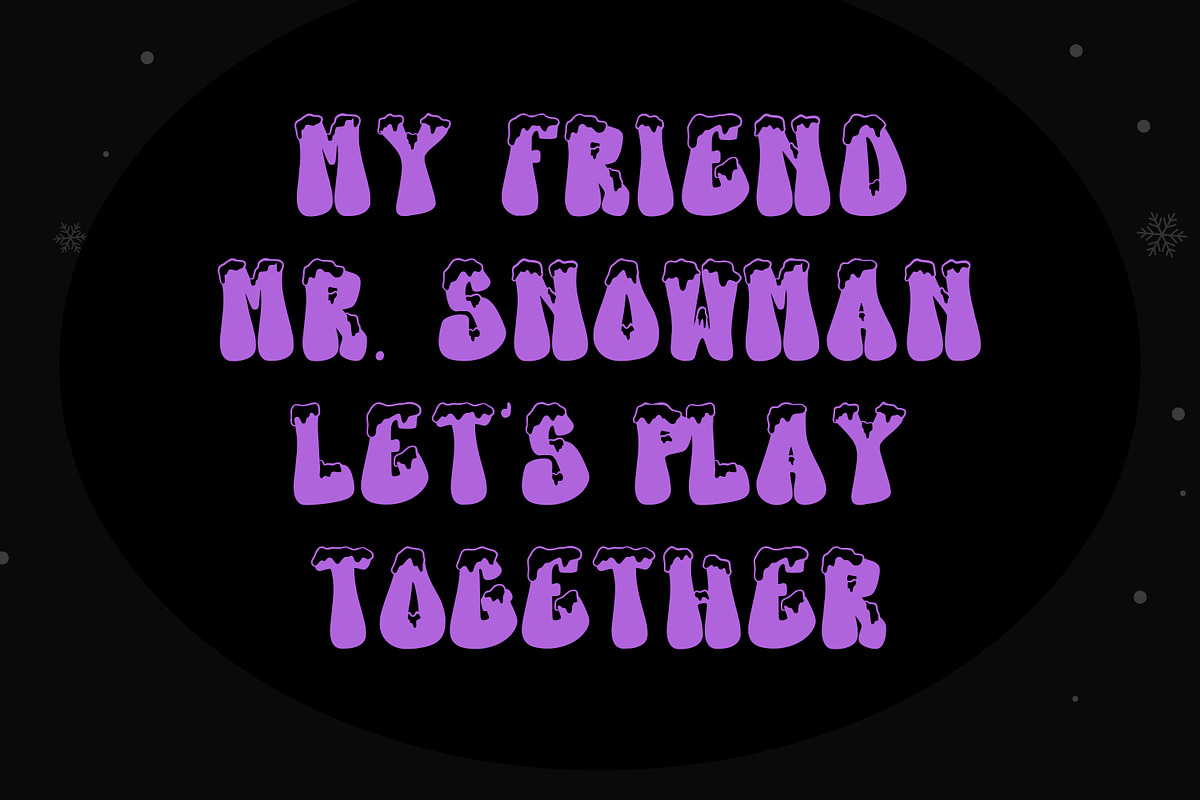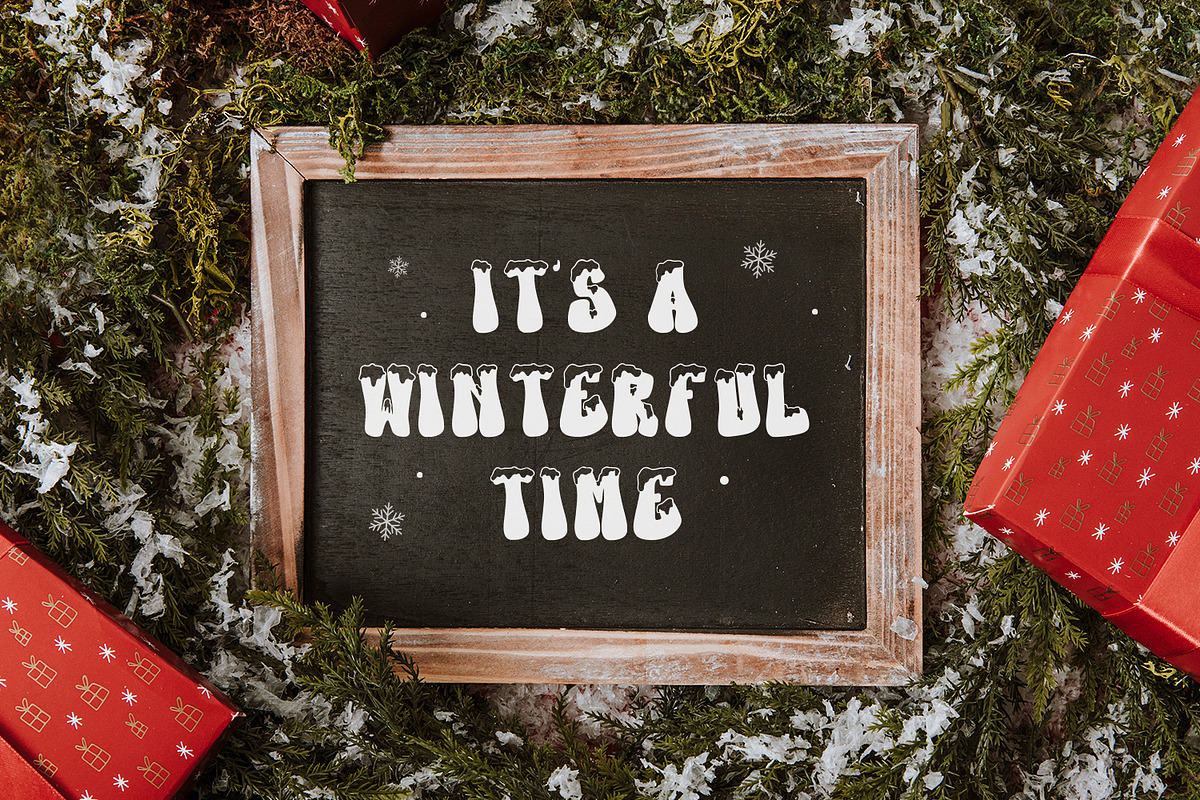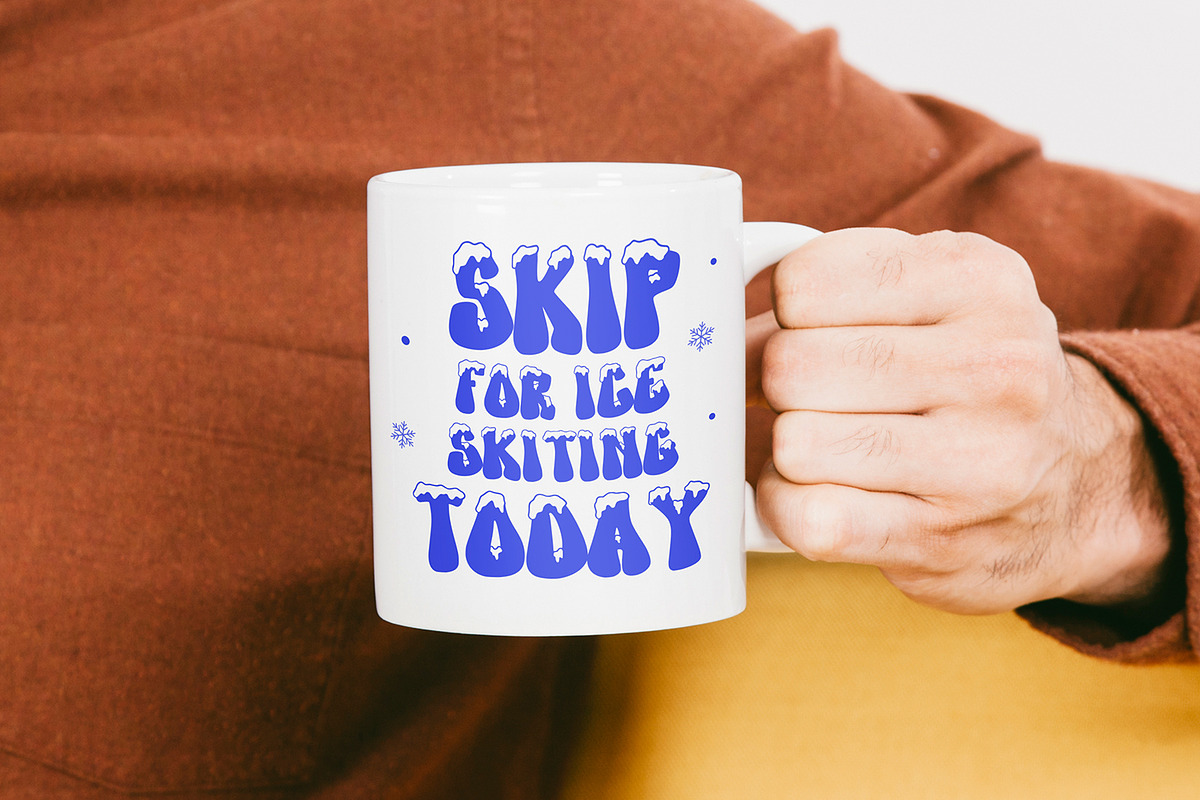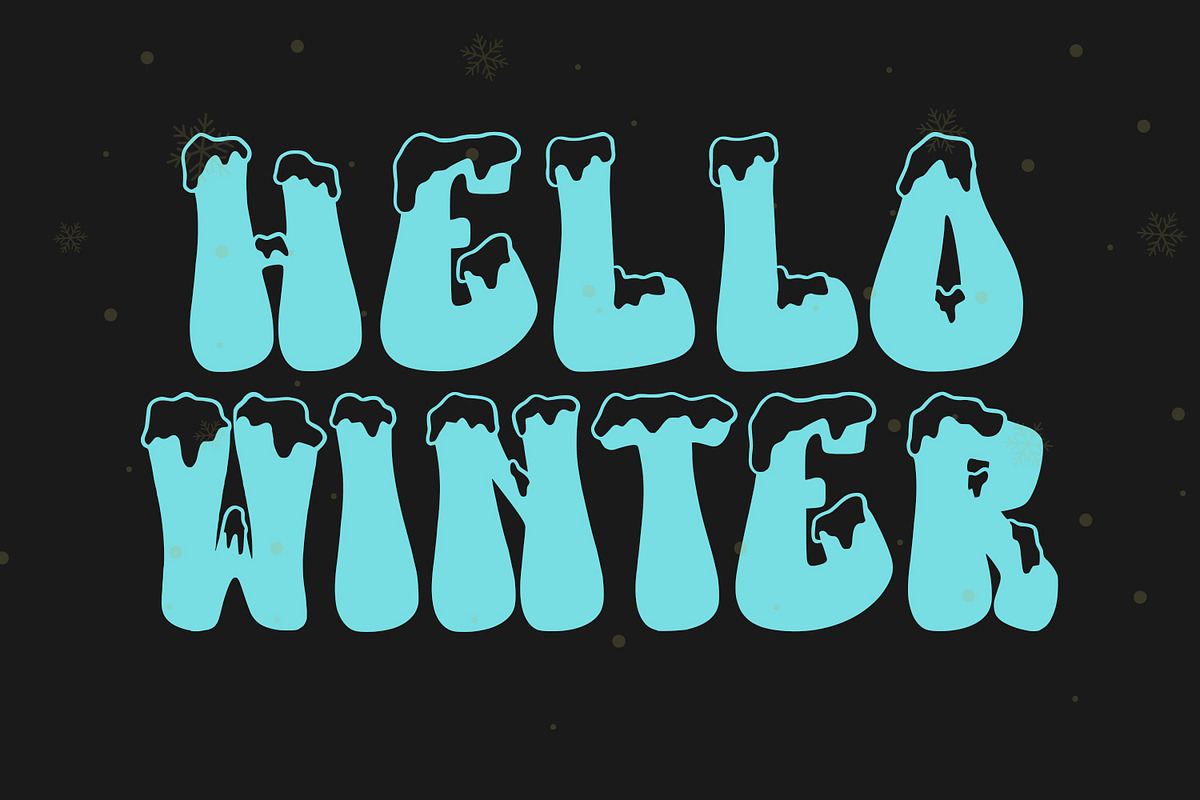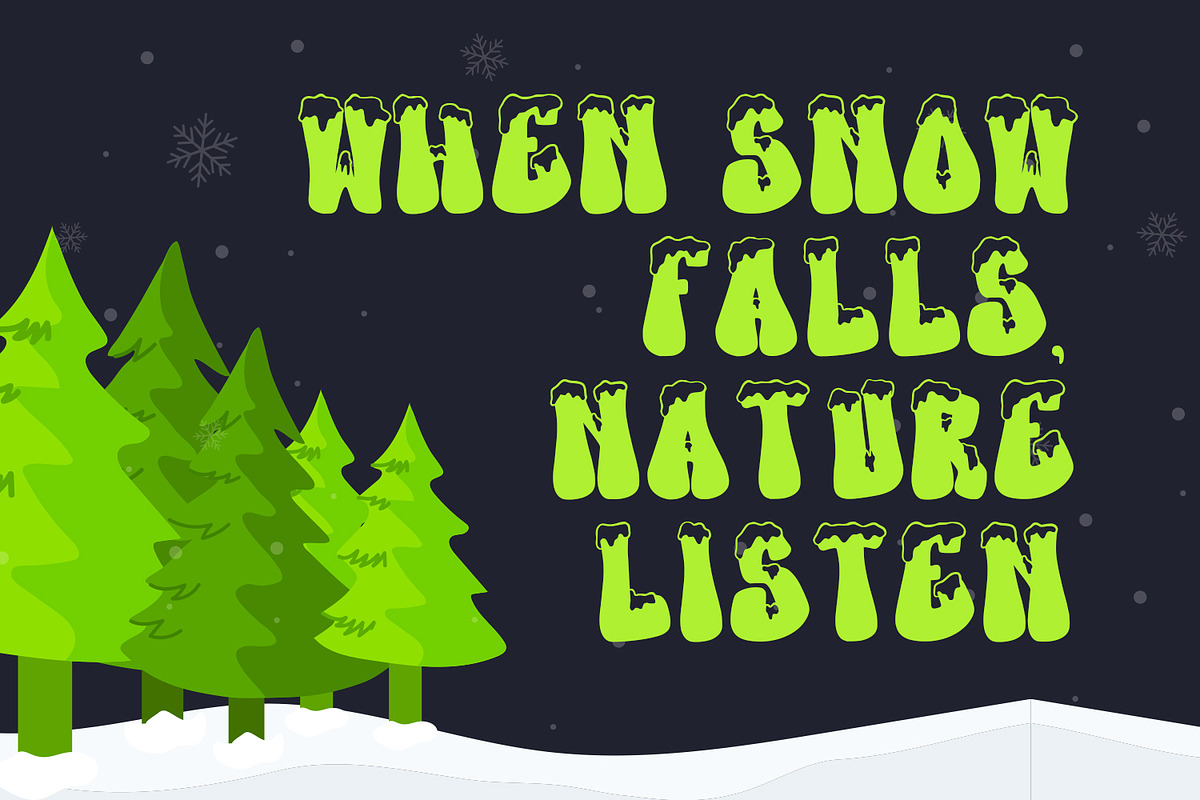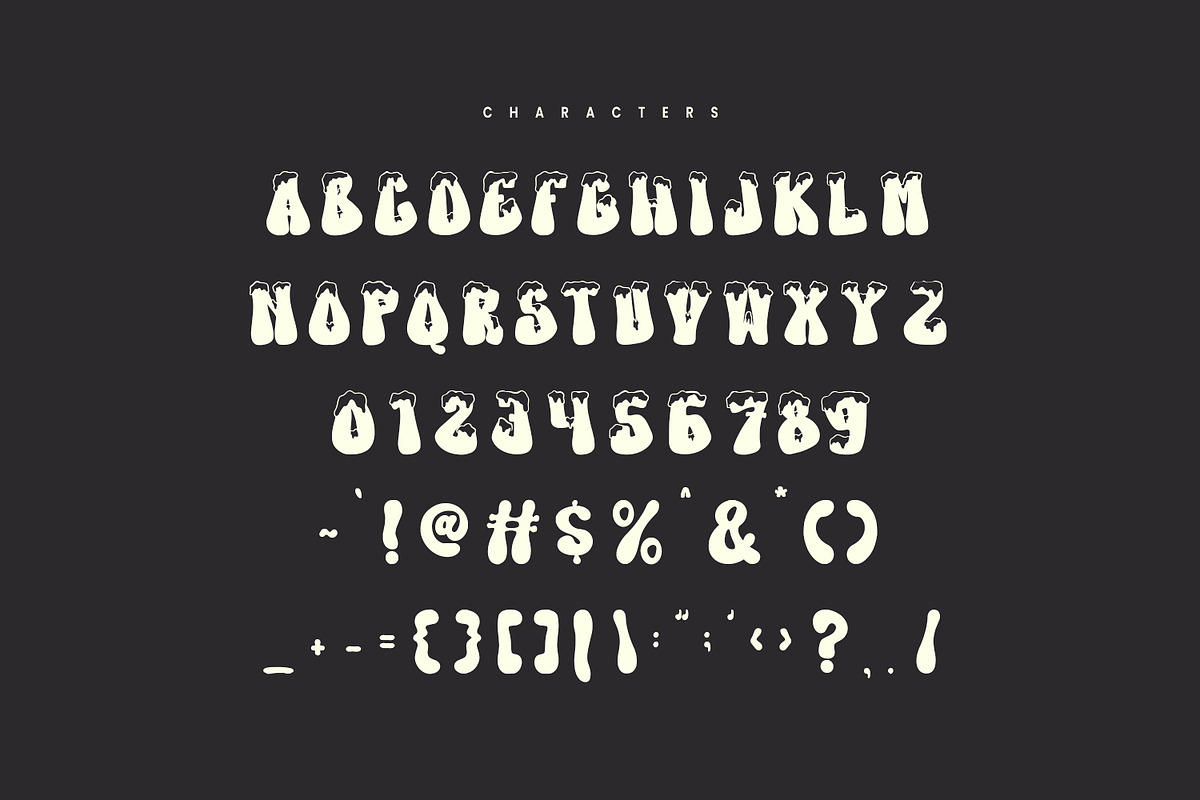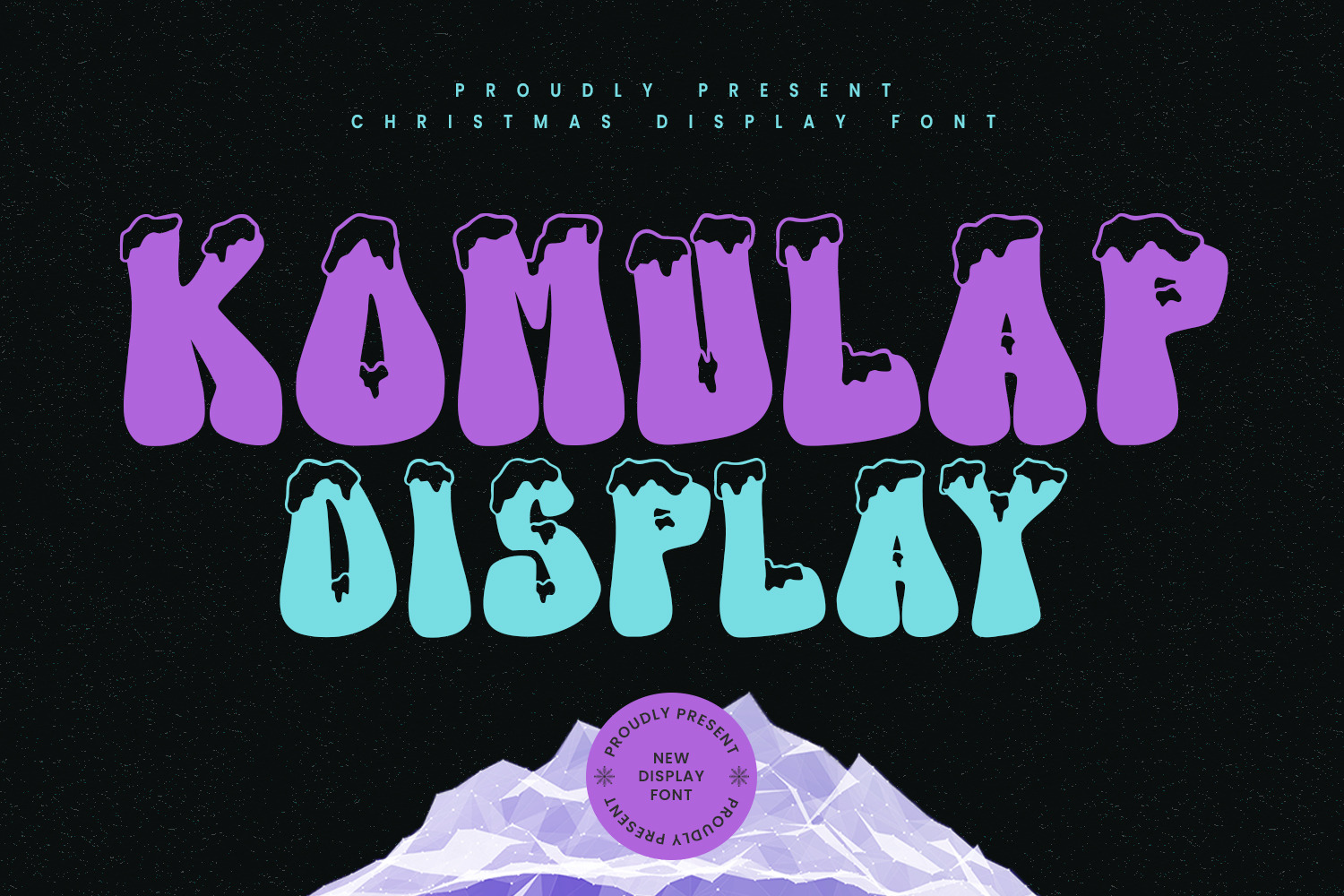
Komulap Christmas Display Font
Komulap is a handwritten christmas display font. With simple stroke, fun character to give you an extra creative work. Komulap font support multilingual more than 100+ language. This font is good for logo design, Social media, Movie Titles, Books Titles, a short text even a long text letter and good for your secondary text font with sans or serif. Make a stunning work with Komulap font.